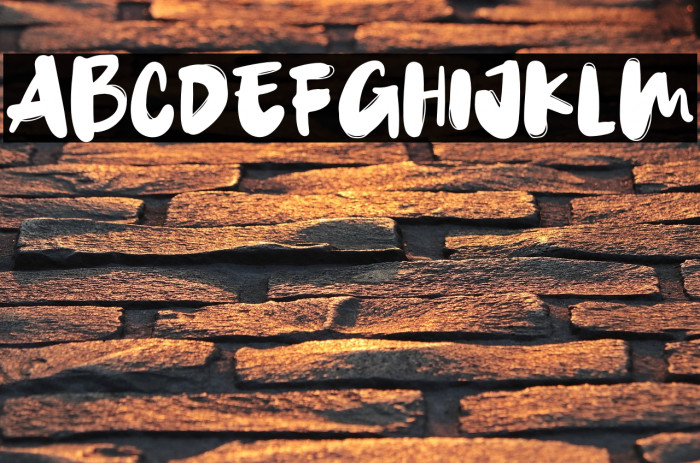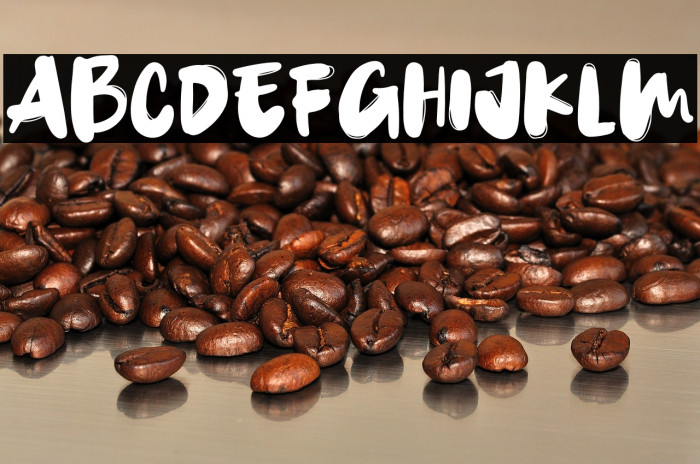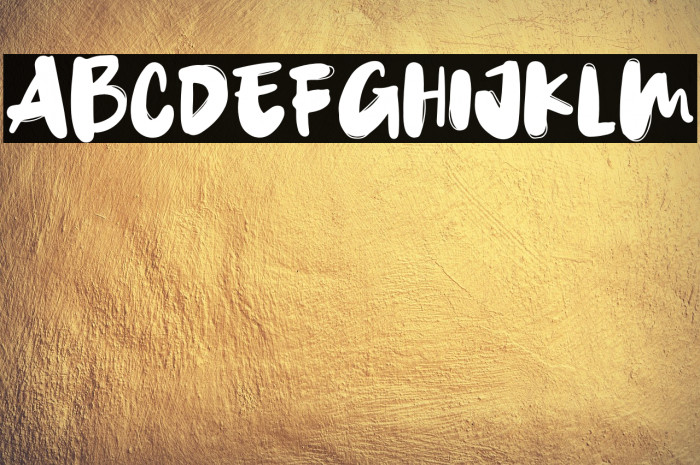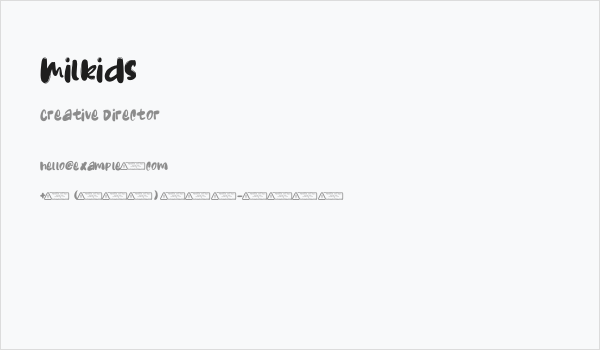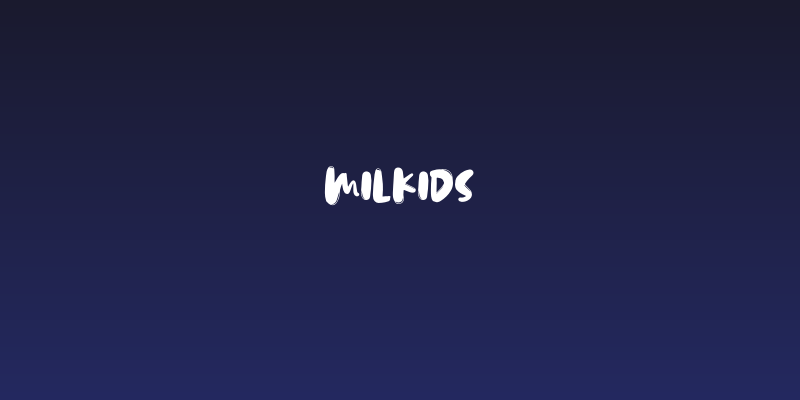
Milkids Font
Milkids Description
This playful and bold font features a handwritten style with thick, rounded strokes that give it a lively and energetic appearance. The uppercase and lowercase letters maintain a consistent flow, with slight variations that add to its charm. The characters are slightly slanted, enhancing the casual and informal feel. The font includes a full set of numerals and a selection of special characters, making it versatile for various uses. Its boldness and unique style make it stand out, perfect for projects that require a fun and engaging typeface.
| Proposed Projects | Ideal for children's book covers, playful posters, greeting cards, and branding for fun-oriented products. |